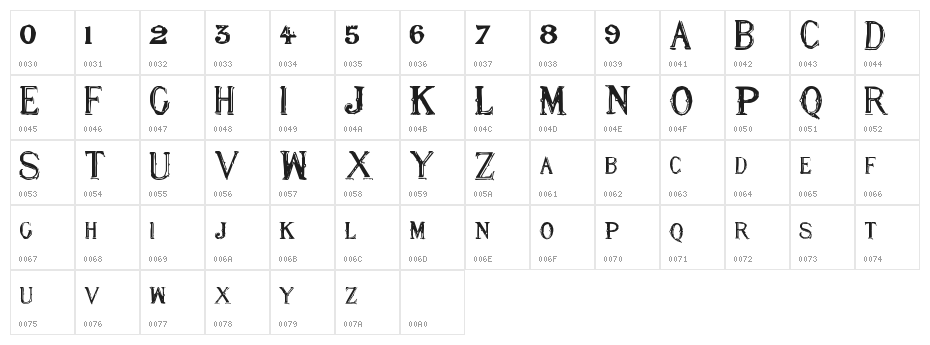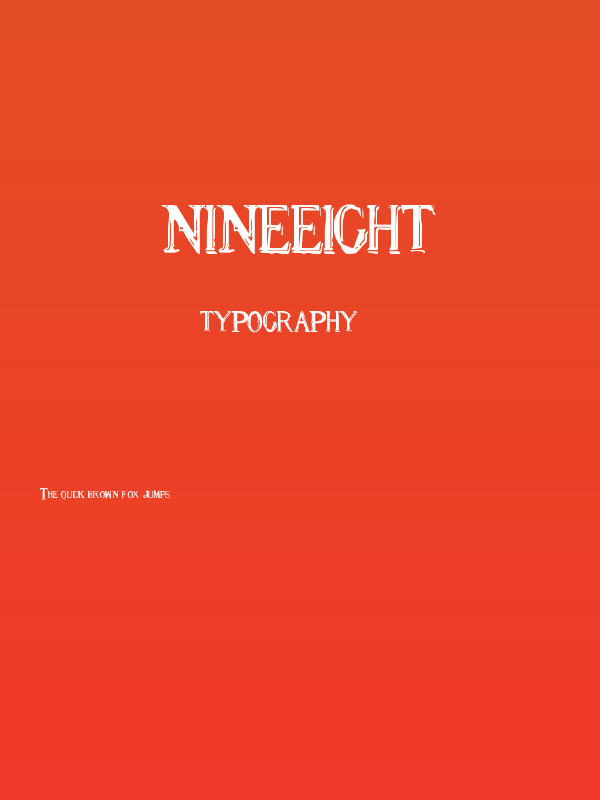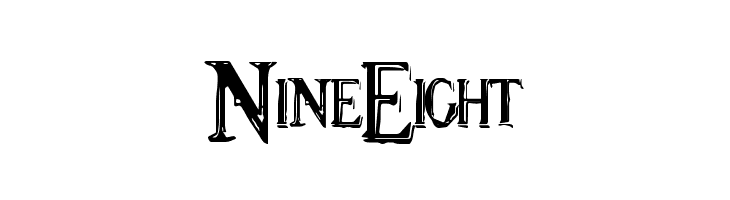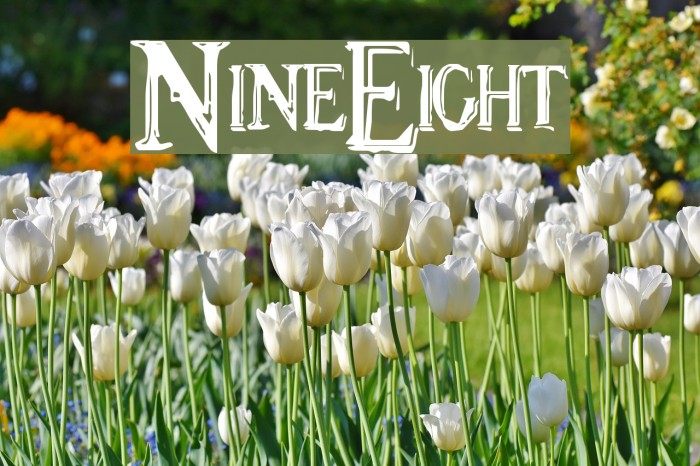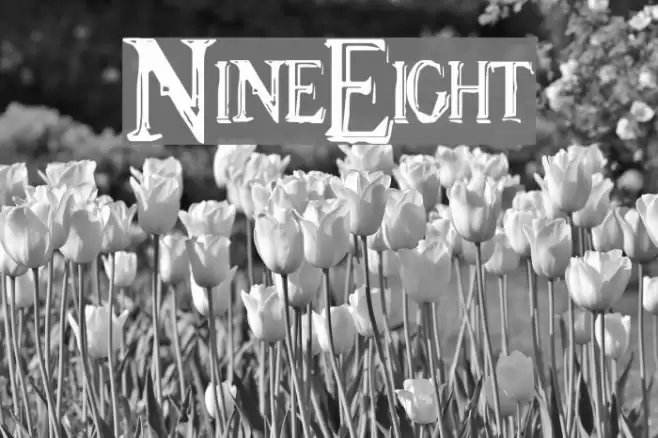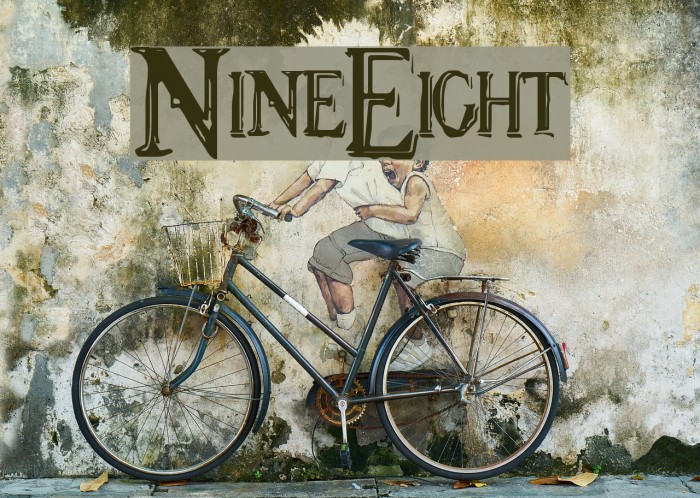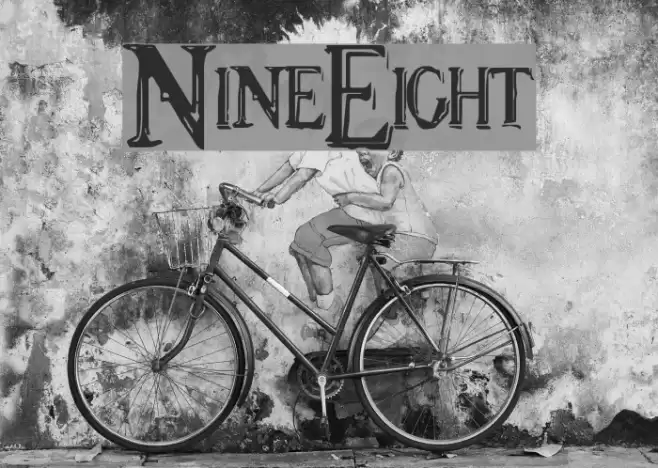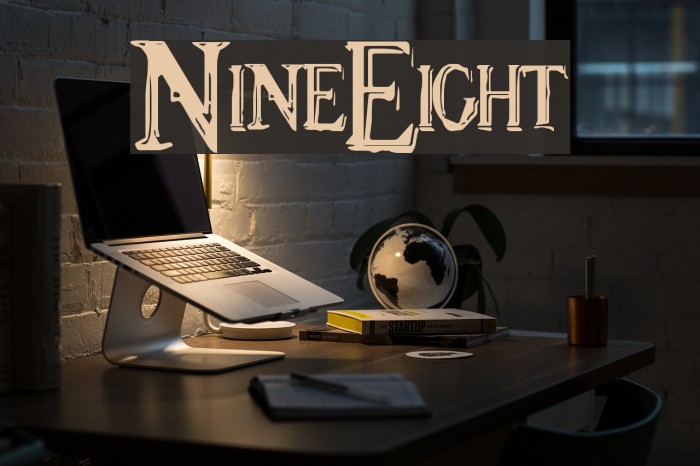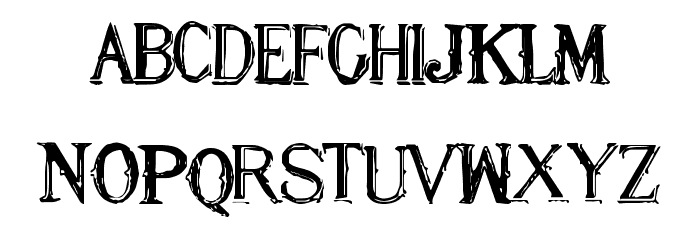
NineEight Font
NineEight Description
This font features a bold and dynamic design with a distressed, grunge-like appearance. The characters have a rough, hand-drawn quality, with uneven edges and varying line thicknesses that create a sense of movement and energy. The uppercase letters are particularly striking, with exaggerated serifs and a slightly condensed form, while the lowercase letters maintain a consistent style. The numerals and special characters follow the same aesthetic, adding to the font's cohesive look. This font is ideal for projects that require a bold statement or an edgy, artistic touch.